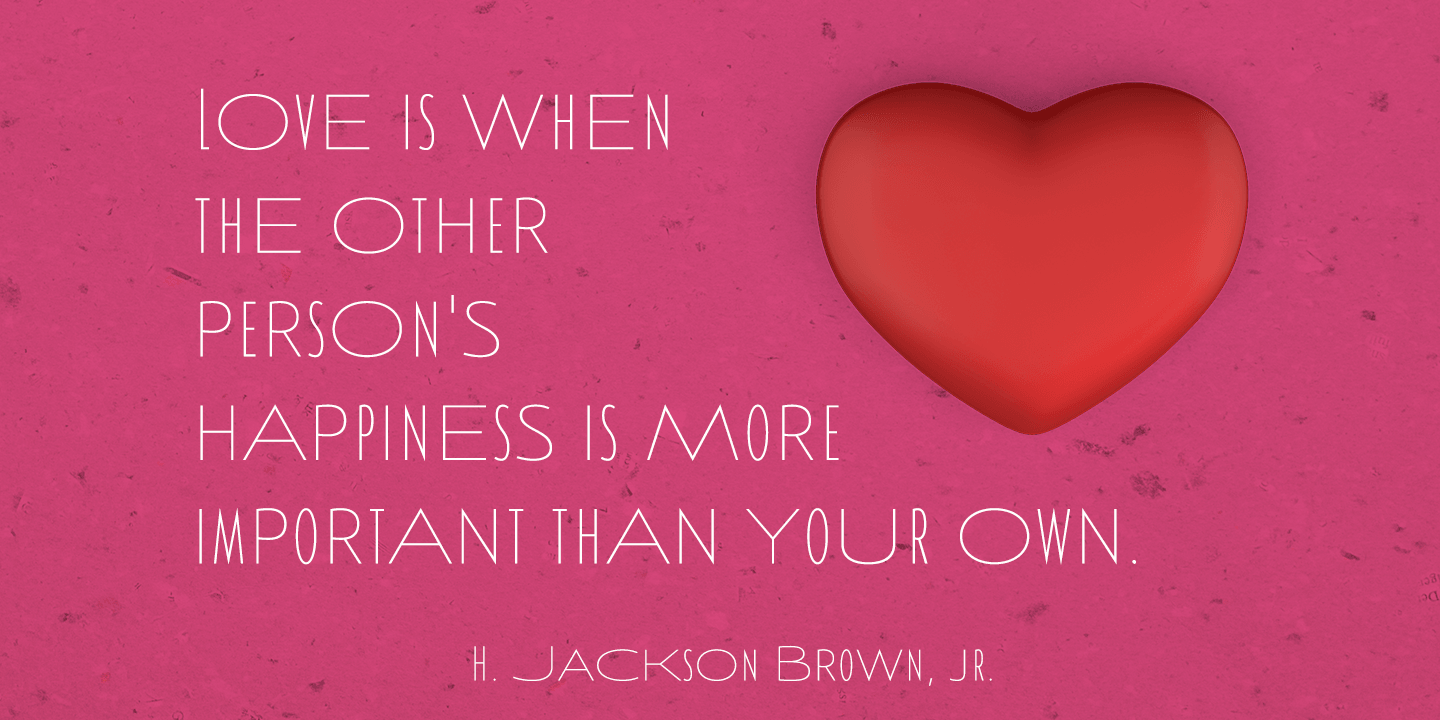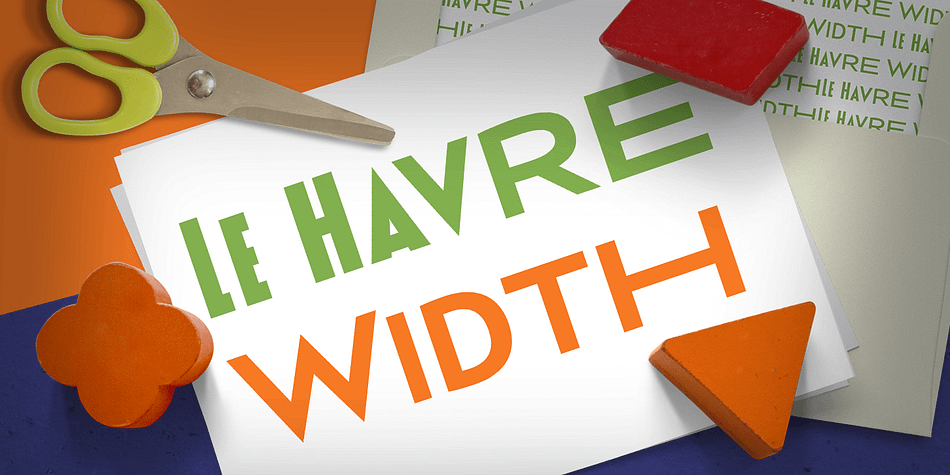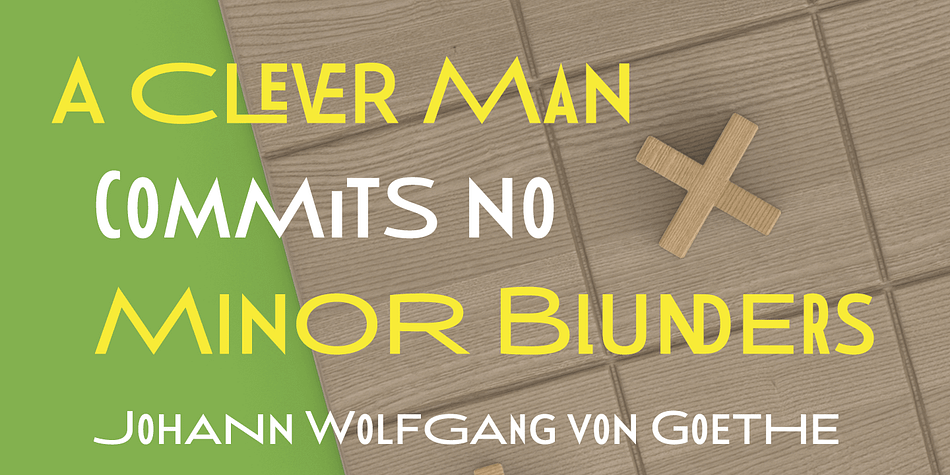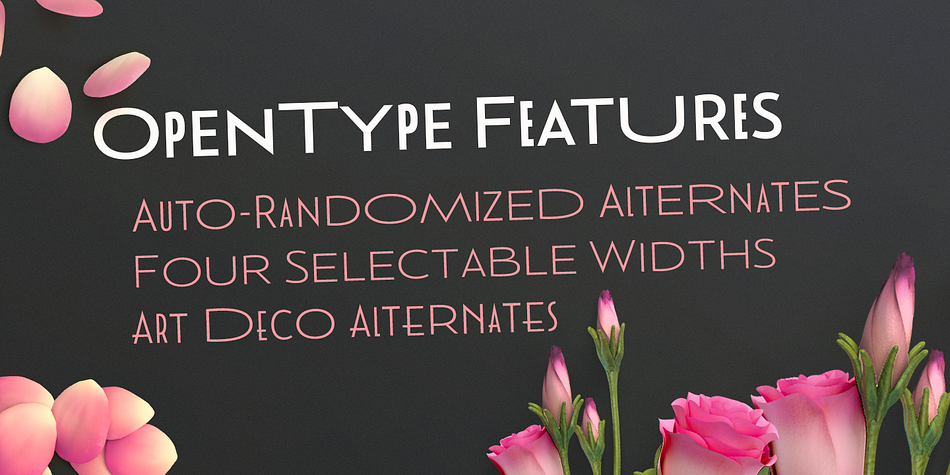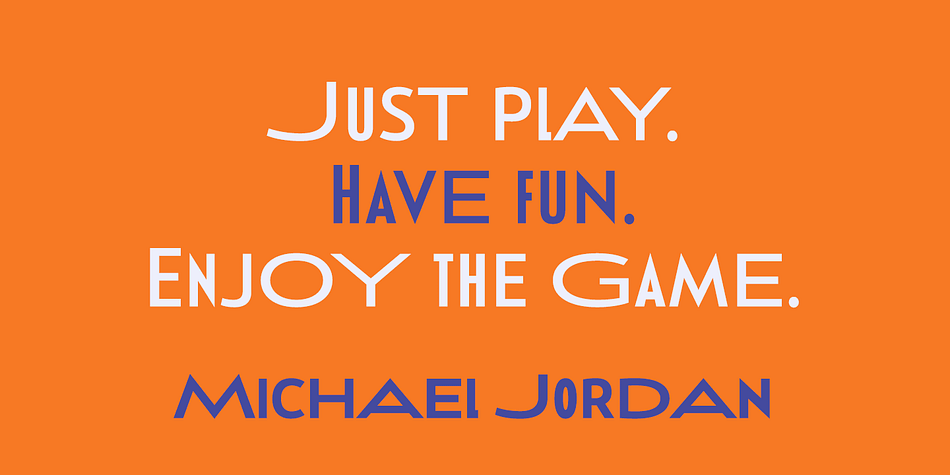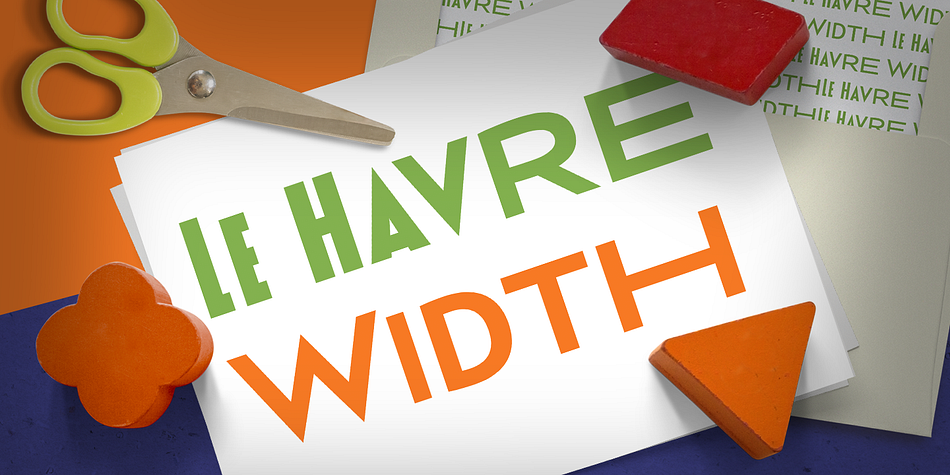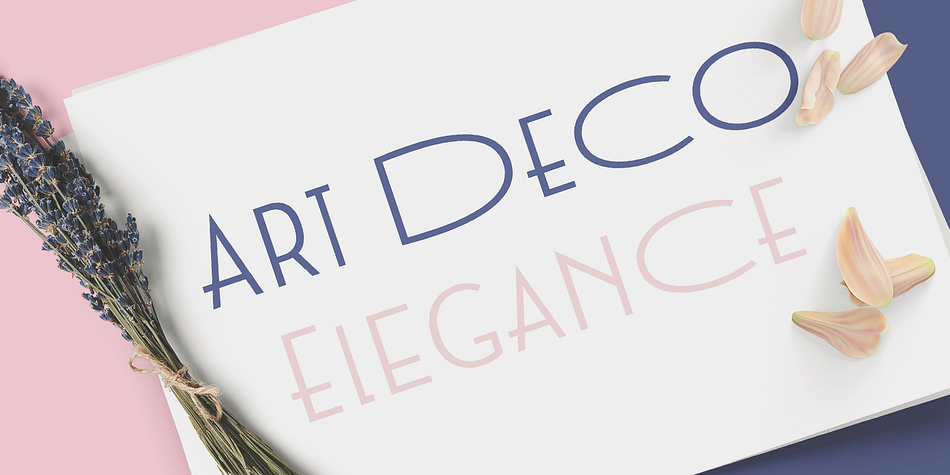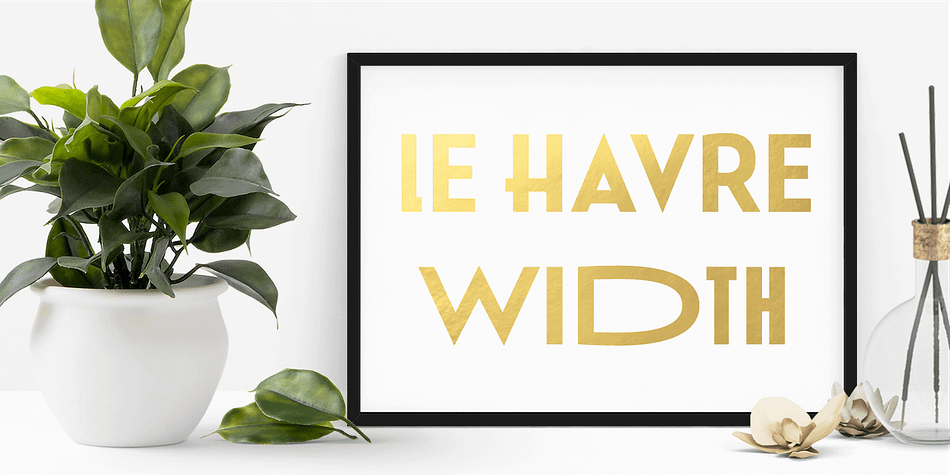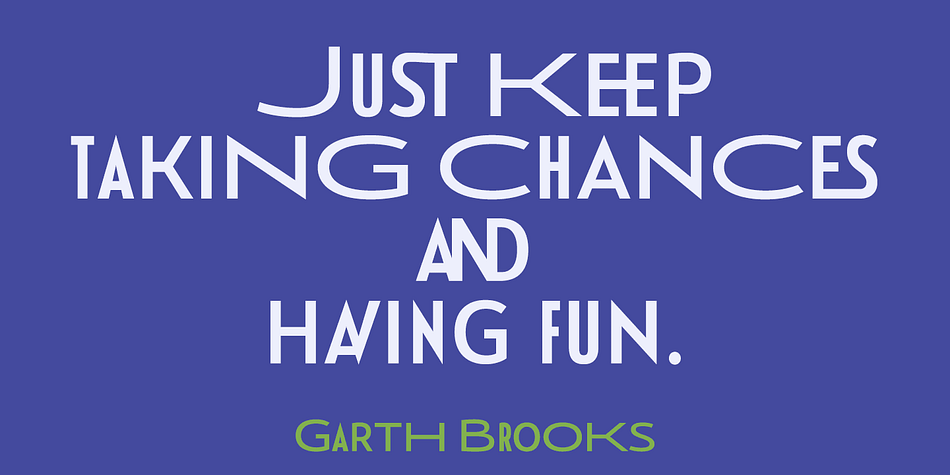
Designed by Jeremy Dooley, Le Havre Width is a display sans font family. This typeface has six styles and was published by Insigne Design.
Le Havre Width is the loveable putty of fonts. Stretch it. Squish it. Squeeze it. Whichever way you play with it, you’re bound to find hours of fun ahead.
This avant-garde typeface family has six distinct weights—each one including a set of four different widths. It’s randomized rhythm also includes selectable glyphs for customization, enabling you to bounce plenty of ideas around for diverse logotypes as well as for specific looks focused on a single width.
Looking for even more fun with this geometric sans? Try adding in some of the alternate ligatures, or use the two different art deco styles included with the font. The all-around whimsical nature of Le Havre Width is perfect for toys, posters, T-shirts, cards, and anywhere else where fun is the name of the game.